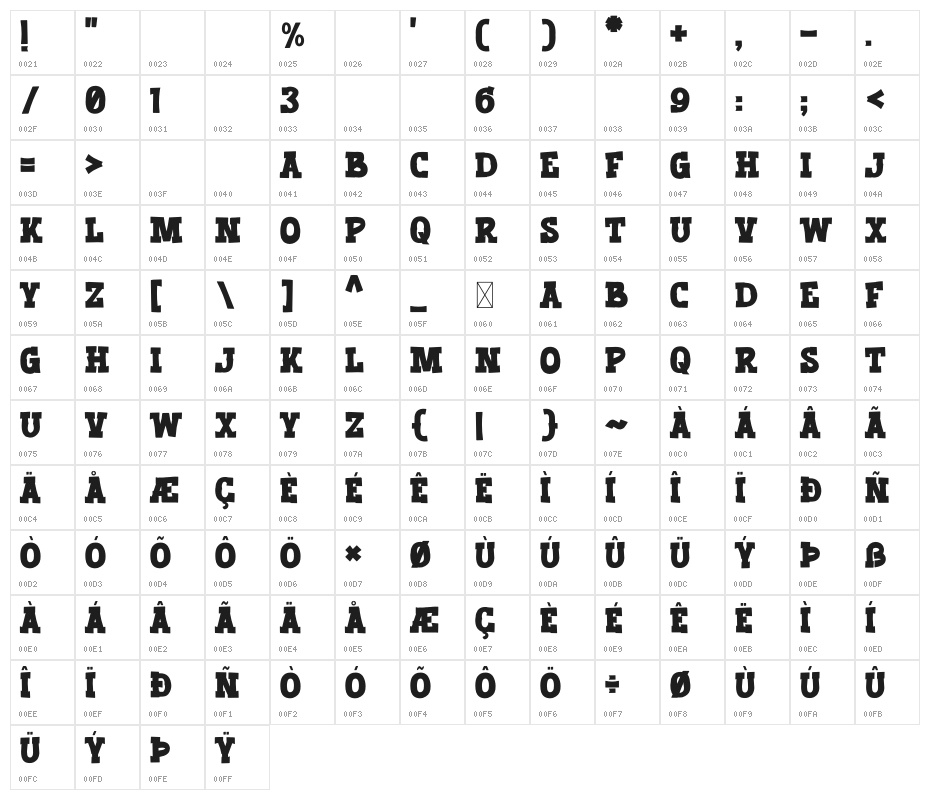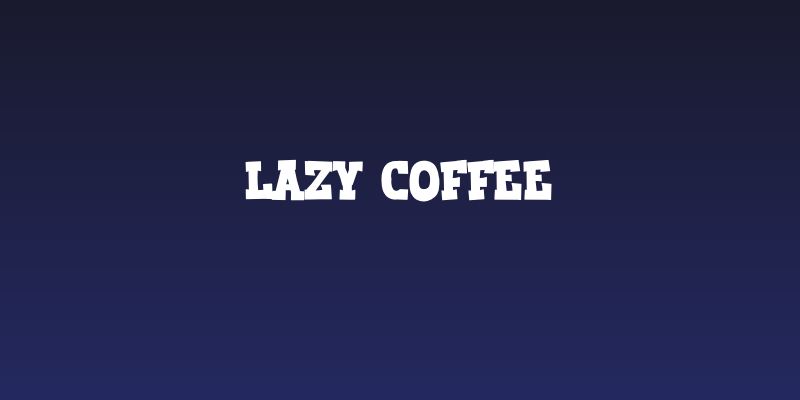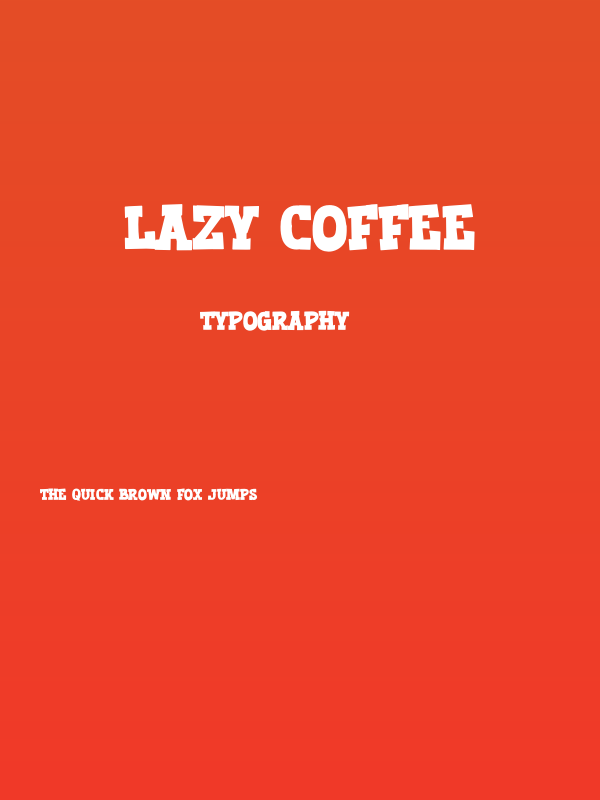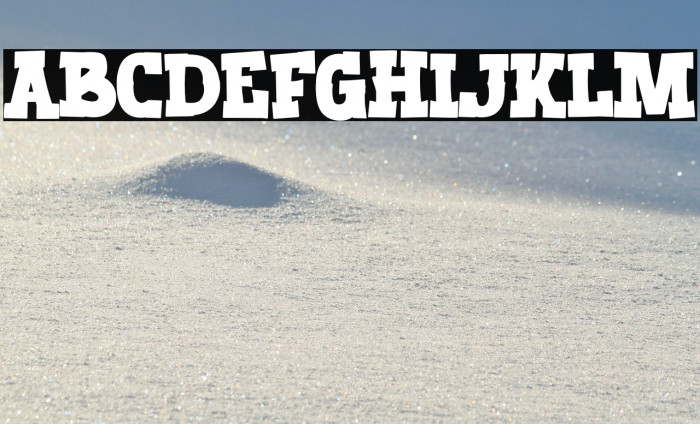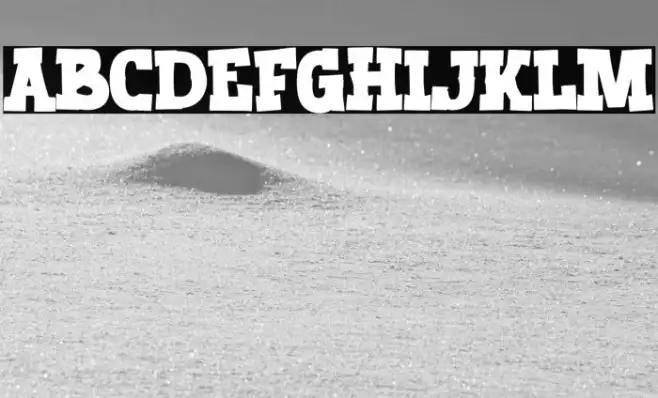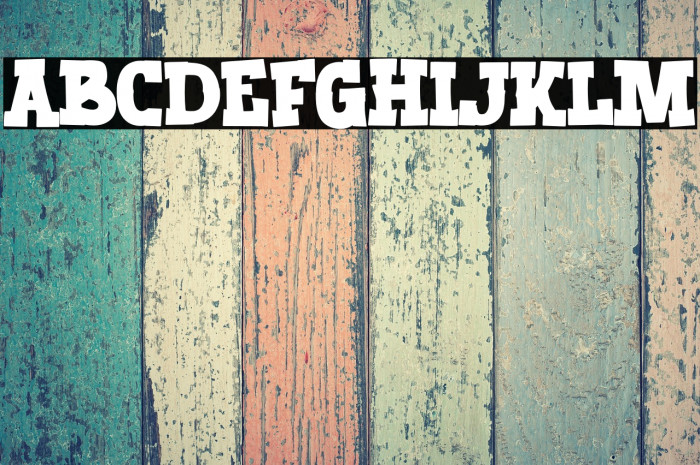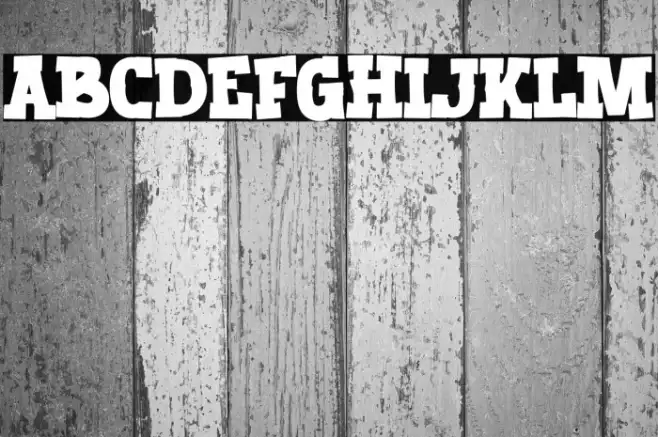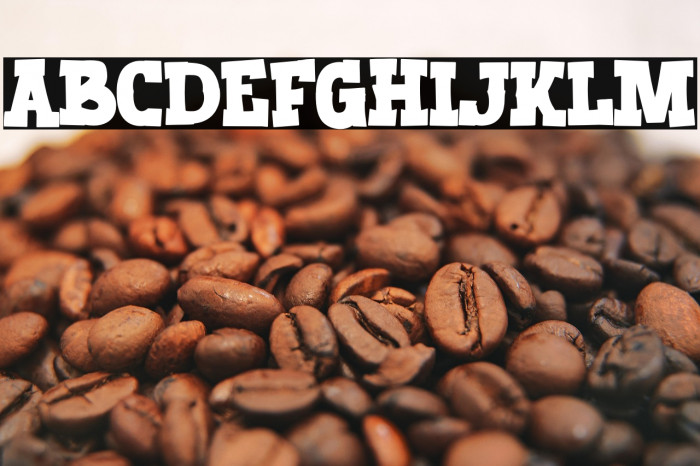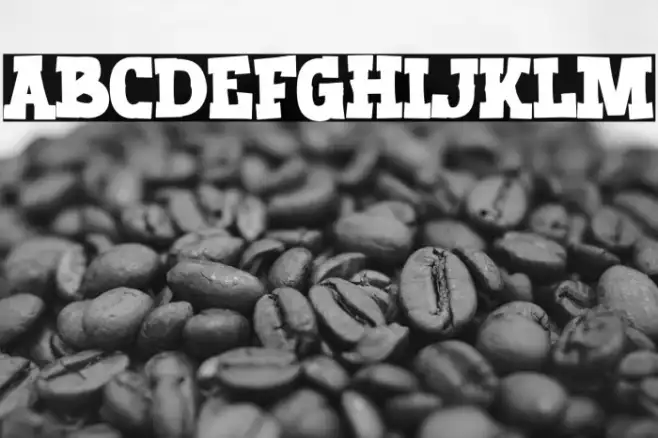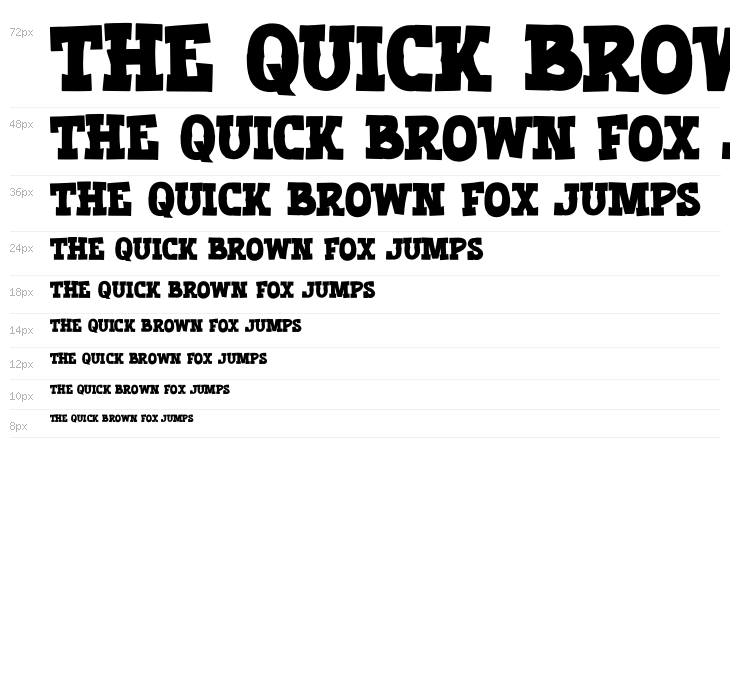
Lazy Coffee Font
Lazy Coffee Description
This font features a bold and playful design with a distinctly chunky appearance. The characters exhibit a slightly uneven baseline, adding a whimsical and informal touch. The strokes are thick and consistent, giving the font a strong presence. The uppercase and lowercase letters maintain a uniform style, while the numerals and special characters complement the overall aesthetic. This font's quirky and bold nature makes it ideal for projects that require a fun and eye-catching typeface.
| Proposed Projects | Ideal for children's books, playful branding, posters, and event invitations. |